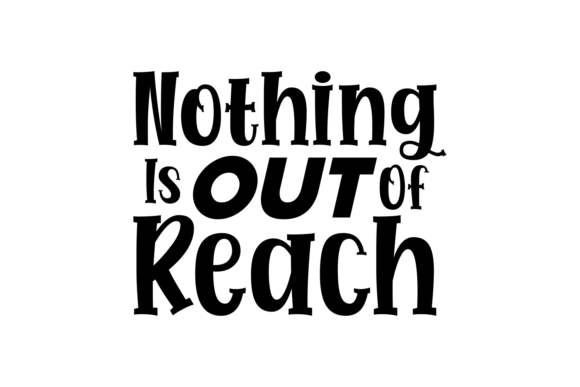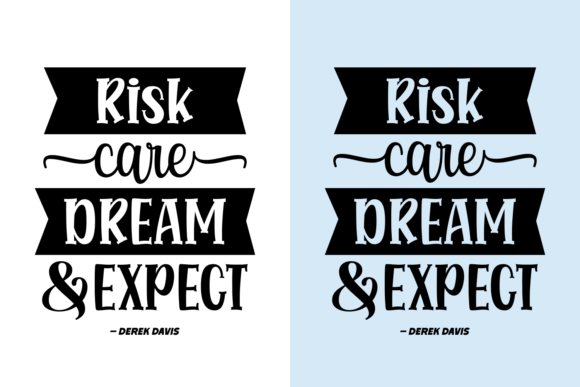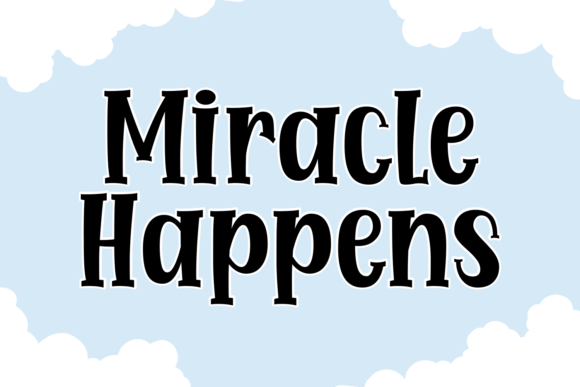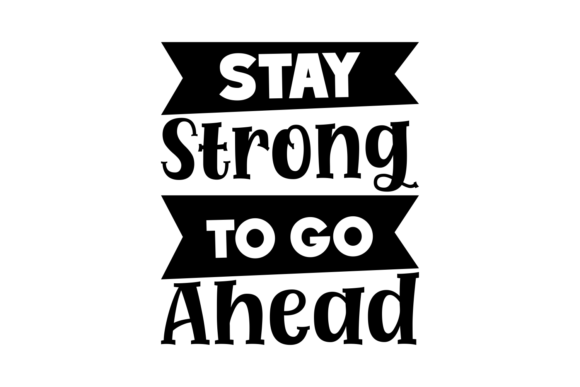
Introducing Buckly Bright Font: Add a Playful Touch to Your Designs
Are you looking for a font that can add a dash of playfulness and whimsy to your designs? Look no further than Buckly Bright Font! This beautifully crafted display font is perfect for designers and crafters who want to bring a touch of handmade charm to their work. With its unique and playful feel, Buckly Bright Font is sure to become a favorite in your font collection.
The Playful Personality of Buckly Bright Font
Buckly Bright Font is a true showstopper, with a personality that’s equal parts playful, fun, and charming. This handwritten font is designed to evoke the feeling of being handmade, with a unique and imperfect charm that’s impossible to resist. Whether you’re working on a design project for a children’s brand, a crafty DIY project, or simply want to add some personality to your digital creations, Buckly Bright Font is the perfect choice.
Endless Design Possibilities with Buckly Bright Font
One of the best things about Buckly Bright Font is its versatility. This display font can be used for a wide range of design projects, from:
- Children’s books and educational materials
- Crafting and DIY projects, such as sewing, knitting, or paper crafting
- Digital products, like printables, planners, and social media graphics
- Branding and packaging for small businesses, especially those with a playful or handmade vibe
- Party decorations and invitations
Wherever you need to add a touch of whimsy and playfulness, Buckly Bright Font is the perfect choice.
Masterfully Designed for Maximum Impact
Buckly Bright Font has been carefully crafted to deliver maximum impact and visual appeal. The designer has masterfully balanced playfulness with legibility, making it easy to read and understand, even at smaller sizes. The font’s unique character and charm shine through in every letter, making it perfect for headlines, titles, and short paragraphs of text.
Bring Your Creative Ideas to Life with Buckly Bright Font
Whether you’re a seasoned designer or a crafty DIY enthusiast, Buckly Bright Font has the potential to take your creative projects to the next level. With its unique personality and versatility, this font can help you:
- Add a touch of whimsy and playfulness to your designs
- Stand out from the crowd with a truly unique font
- Create designs that feel handmade and special
- Communicate your brand’s personality and tone
Why Choose Buckly Bright Font?
So why choose Buckly Bright Font over other display fonts on the market? Here are just a few reasons:
- Unique and playful personality that’s sure to grab attention
- Masterfully designed for maximum legibility and visual appeal
- Versatile and adaptable for a wide range of design projects
- Easy to use and pair with other fonts
Get Ready to Fall in Love with Buckly Bright Font